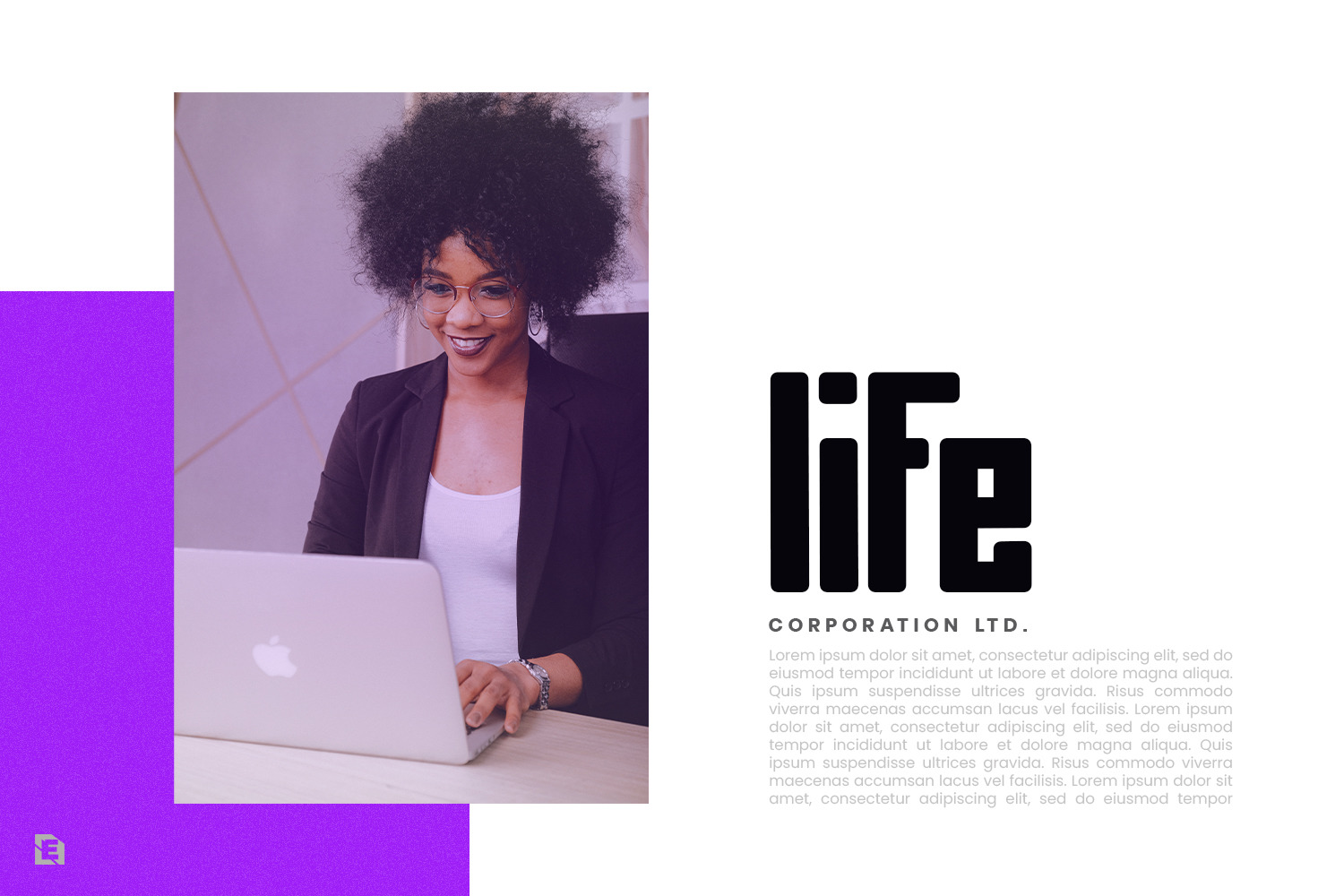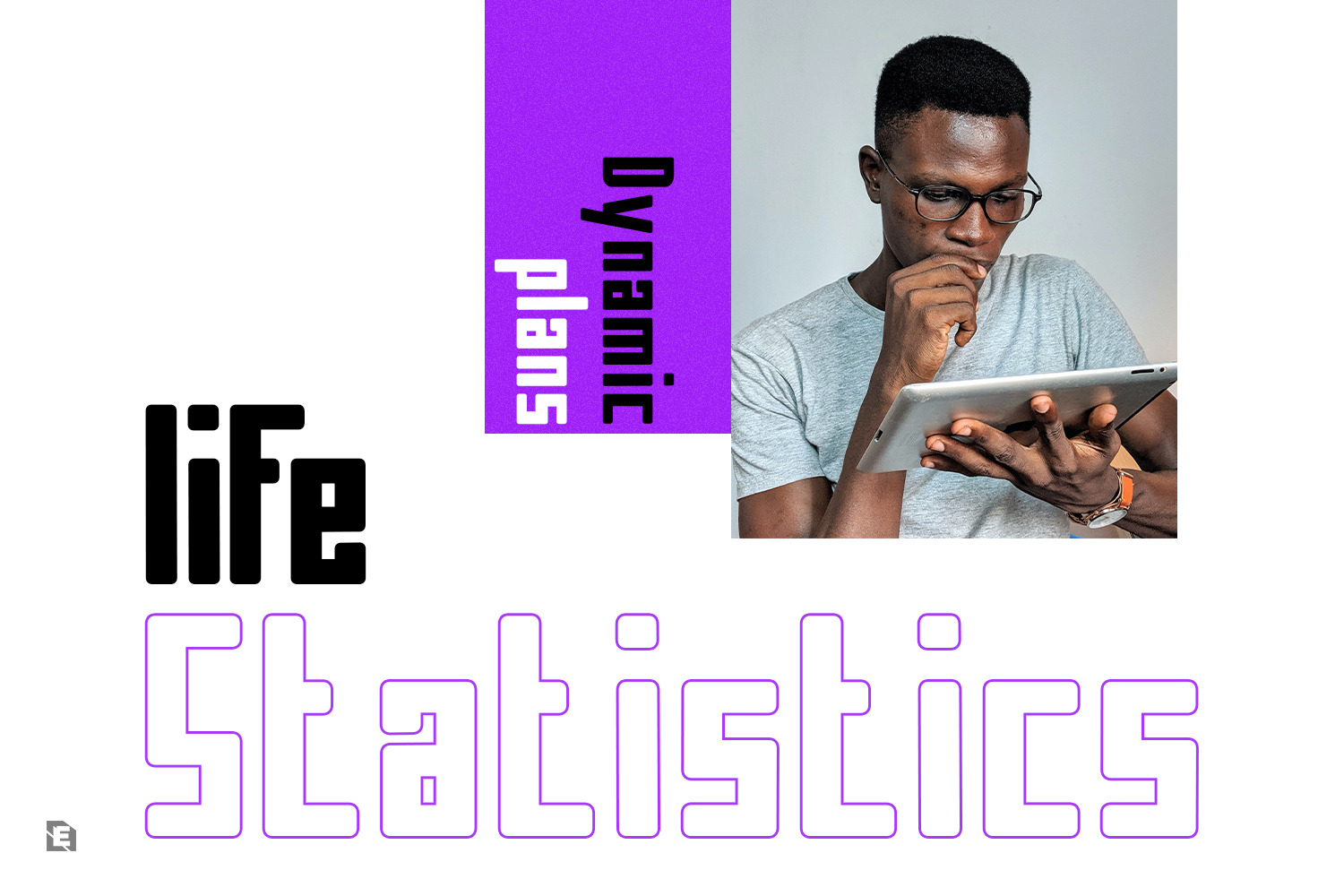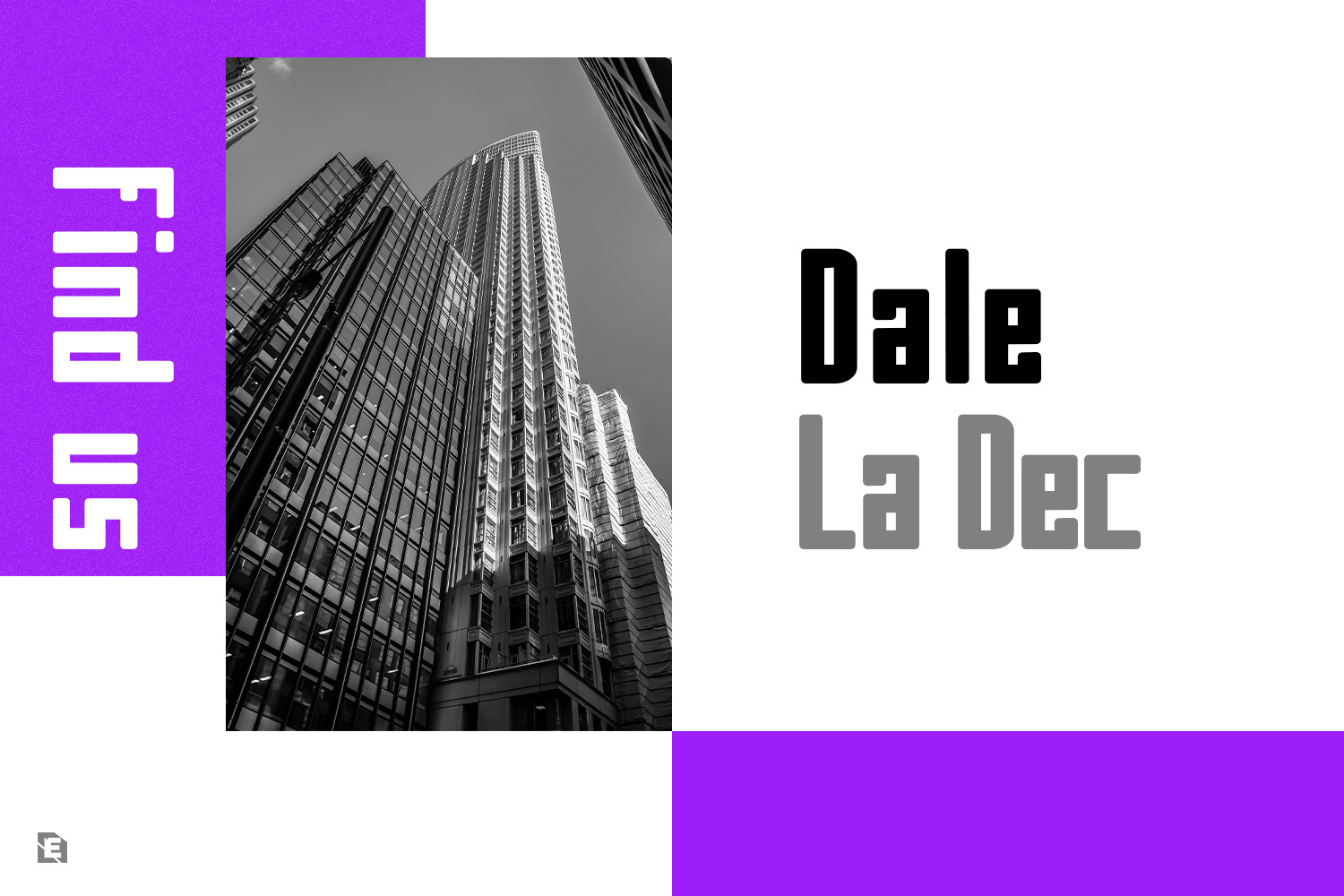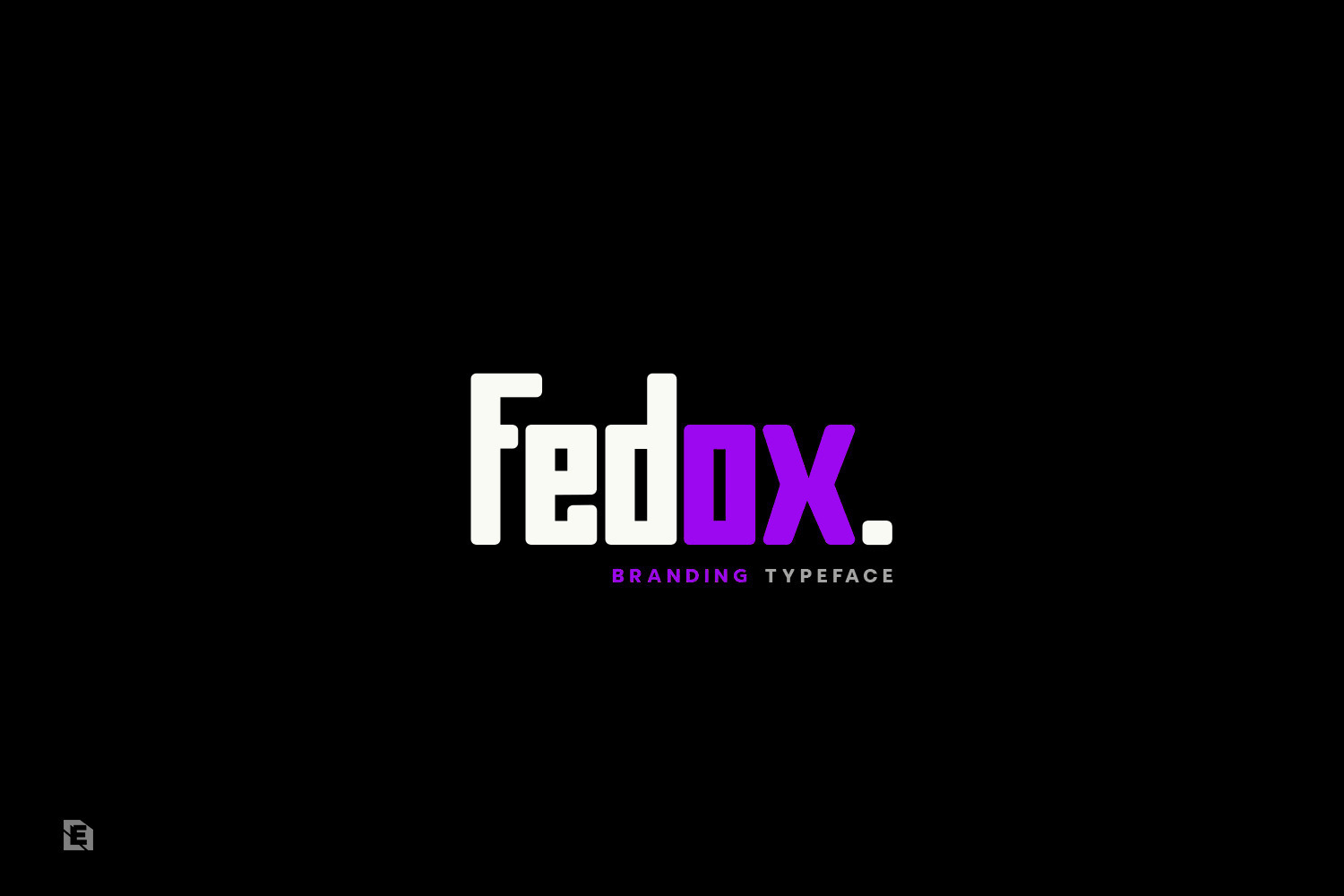
Fedox Typeface
Fedox Typeface is a modern Display typeface, unique and playful style that will help you decorate your design. This font is perfect for your branding projects, logo designs, magazine headers, t-shirt ads, website headers, and more.
This modern font is perfect if you are branding clothes. Its unique style will allow you to reveal your brand from a new angle. An expensive, brutal typeface will draw the eye of many customers to your brand.
Also, this font will suit you if you are in the Music field. Fedox Typeface will well complement your posters, it will be able to decorate the cover of your Music brand.
You can easily use the font feature in many areas. You can create your text with normal characters and highlight bold characters and titles. Some letters in this font will keep your design to make gorgeous.
This font has 200 above glyphs and extensive Latin script support and upper and lowercase sans serif characters. It carries a powerful, unique, and social character line with a premium finish, giving a new impression. Add it confidently to your favourite creations and let yourself be amazed by the outcome generated.